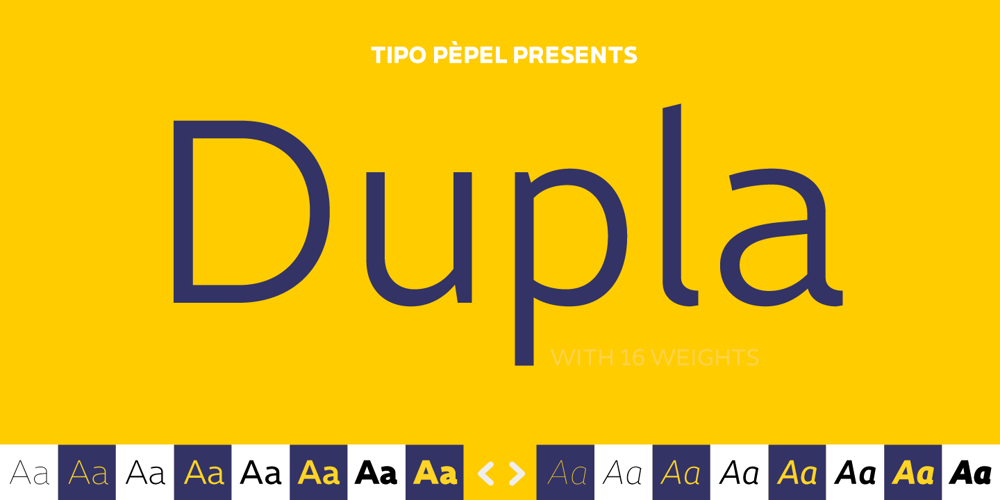
Dupla
Dupla font
Dupla Font Family was designed by Josep Patau and published by Tipo Pèpel. Dupla contains 16 styles and family package options. When Dupla was designed, its DNA shown the best of the typographic heritage from the XIX century types, the oldest san serif known, also named as “Grotesk”, a soft synonym for bizarre, unnatural weird. XIX century Germans’ eyes were surprised, astonished by the formal strangeness that provoked the mutilation of the well known serifed types. But the skeleton and DNA are barely perceptible, an invisible part of the nature of objects. We are interested in the epidermis, the outer, the visible, which directly speak to the eyes, and Dupla tells us with overwhelming presence, that is a formal, traditional type, covered with a childlike sweetness, with slight curves, epidermic, sweetening even ink’s traps up. Frutiger said that Latin alphabet letter’s minimum skeleton is like a lock where you should fit all the letters you see, but that skeleton allows many skins. We use a different skin for every specific use. And Dupla’s skin points to how generous, how friendly it is; the sweetness of the big and good-natured. They do not feel very comfortable in low-cost airplanes company’s seats, but in the proper location with enough room, they’ll fill the atmosphere with kindness. Do not ask for narrow columns, or terse captions in squalid sizes; do not ask for ridiculous “small print” in dark contracts where «The party of the first part shall be known in this contract as the party of the first part …» That’s not for Dupla. Large headlines, generous width columns to cover, rude pullquotes half-breaking columns, loud exclamations, great sizes, with black weights. It’s in the insultingly generous, almost obscene use where Dupla is felt. And if you consider this a obscene, gargantuan, typographical feast, Dupla brings you everything to demonstrate that quantity does not mean less quality. Multi-language support, Latin plus full coverage, complete sets of small caps, fractions, old numerals, modern, tabular, bonds and all the “gourmet” paraphernalia that Patau has accustomed us, after many years of work. If you want to be obscene and pass the censorship, use Dupla. Hedonism is just a venial sin.